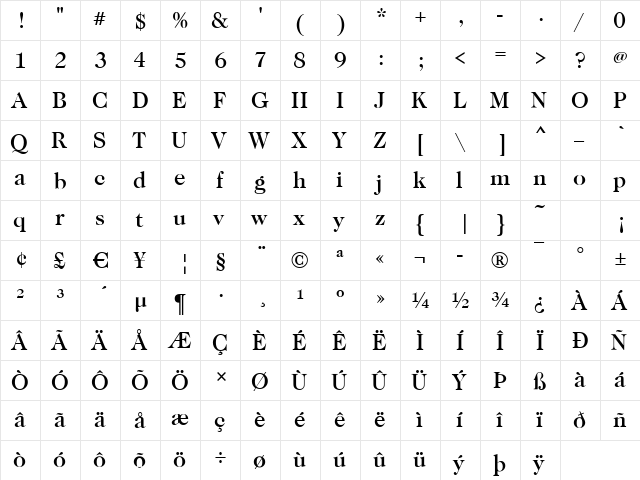
Caslon-Medium Regular
Design Context for Caslon-Medium Typeface
Caslon-Medium is a composed and adaptable typeface that performs quietly and consistently across a wide range of design contexts.
Pro Tip: Use Caslon-Medium in both headline and body roles to test its range before committing to a single application.